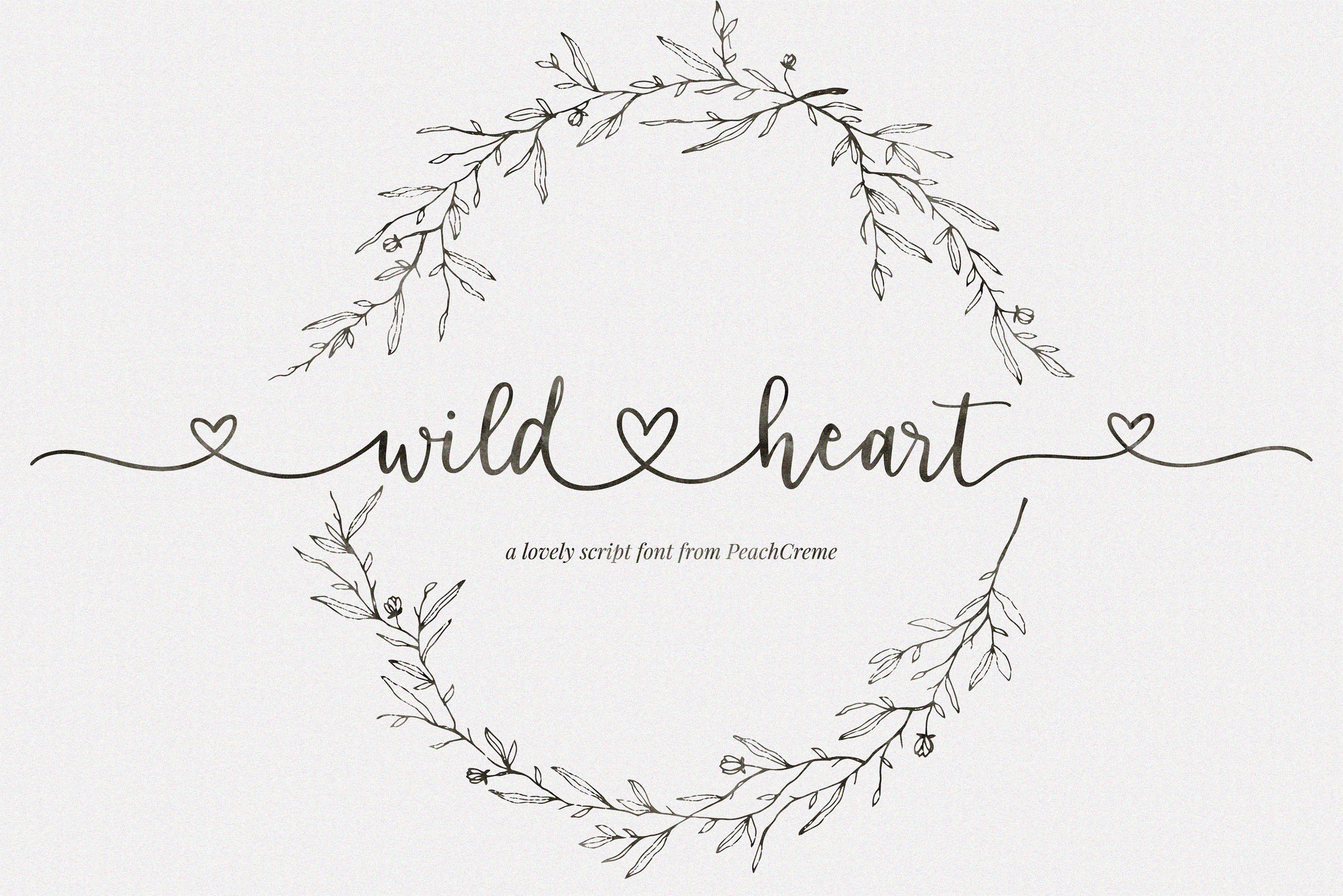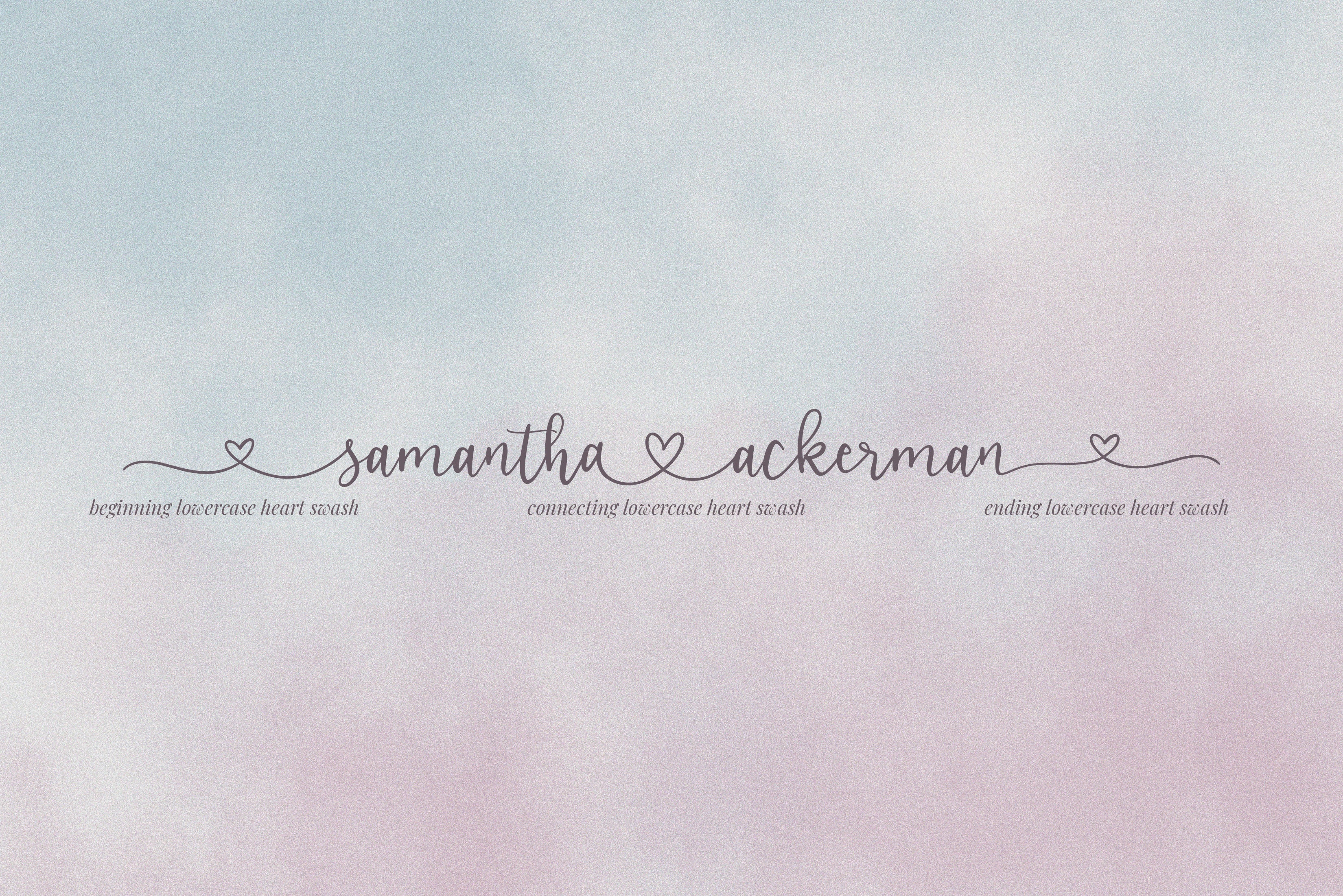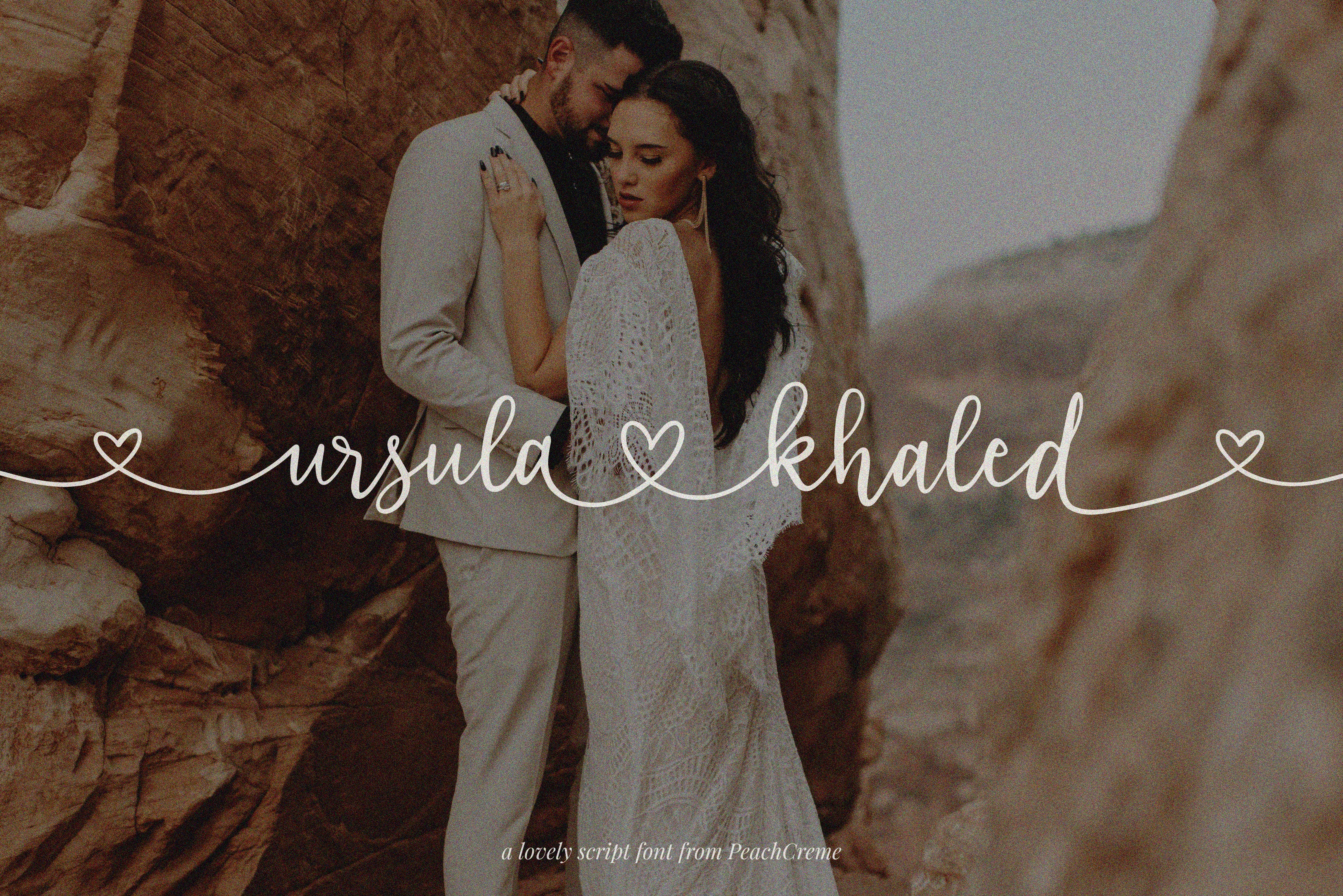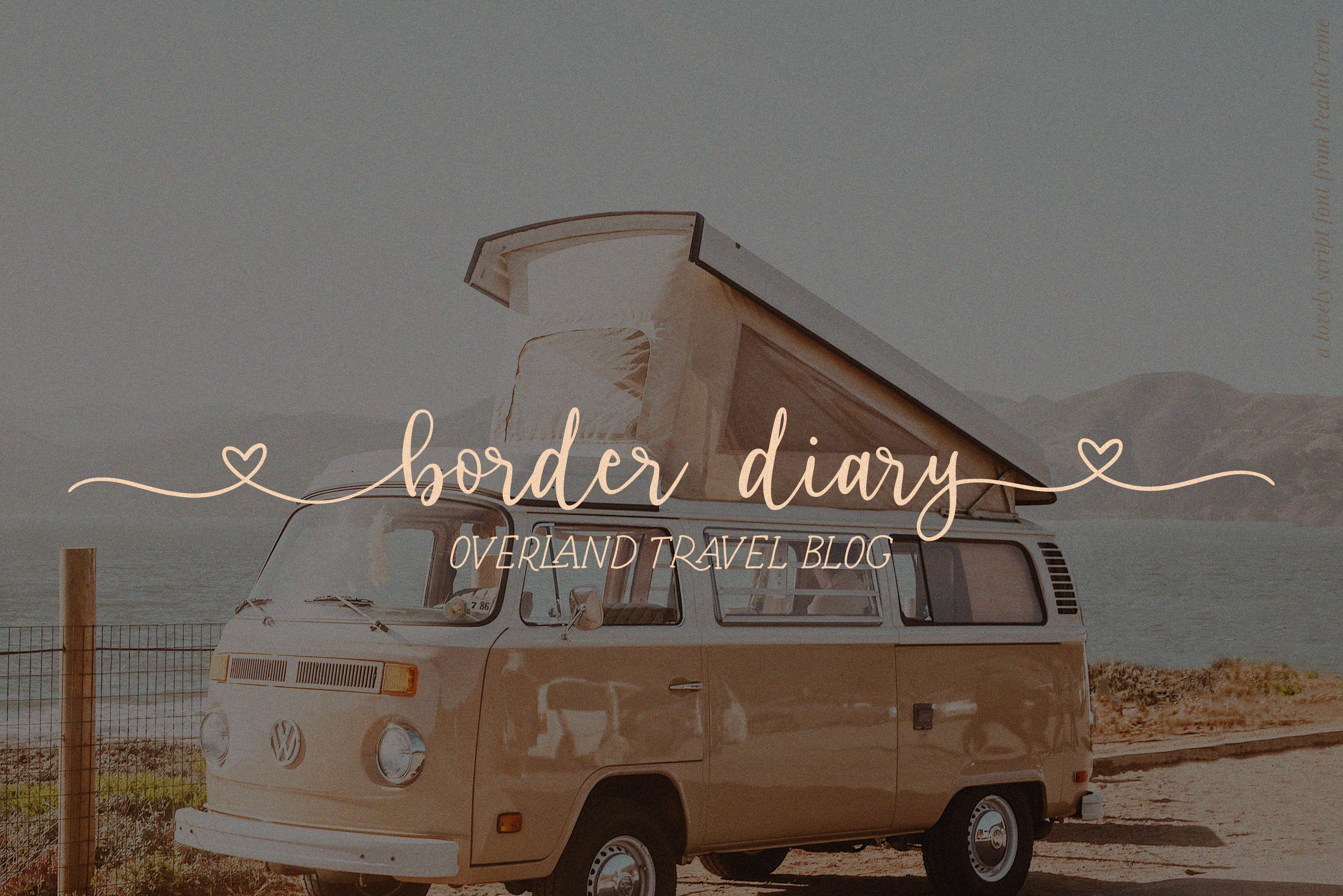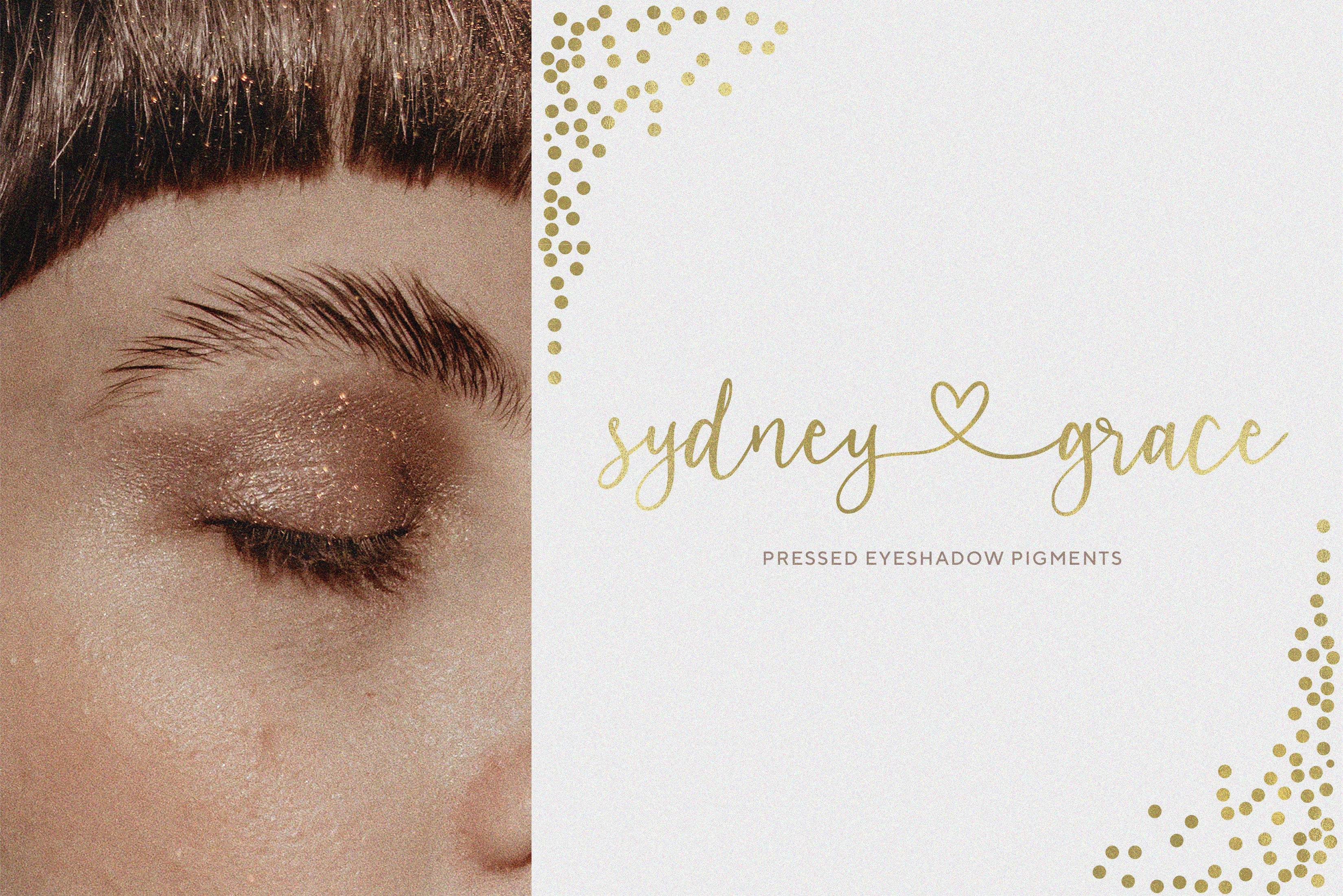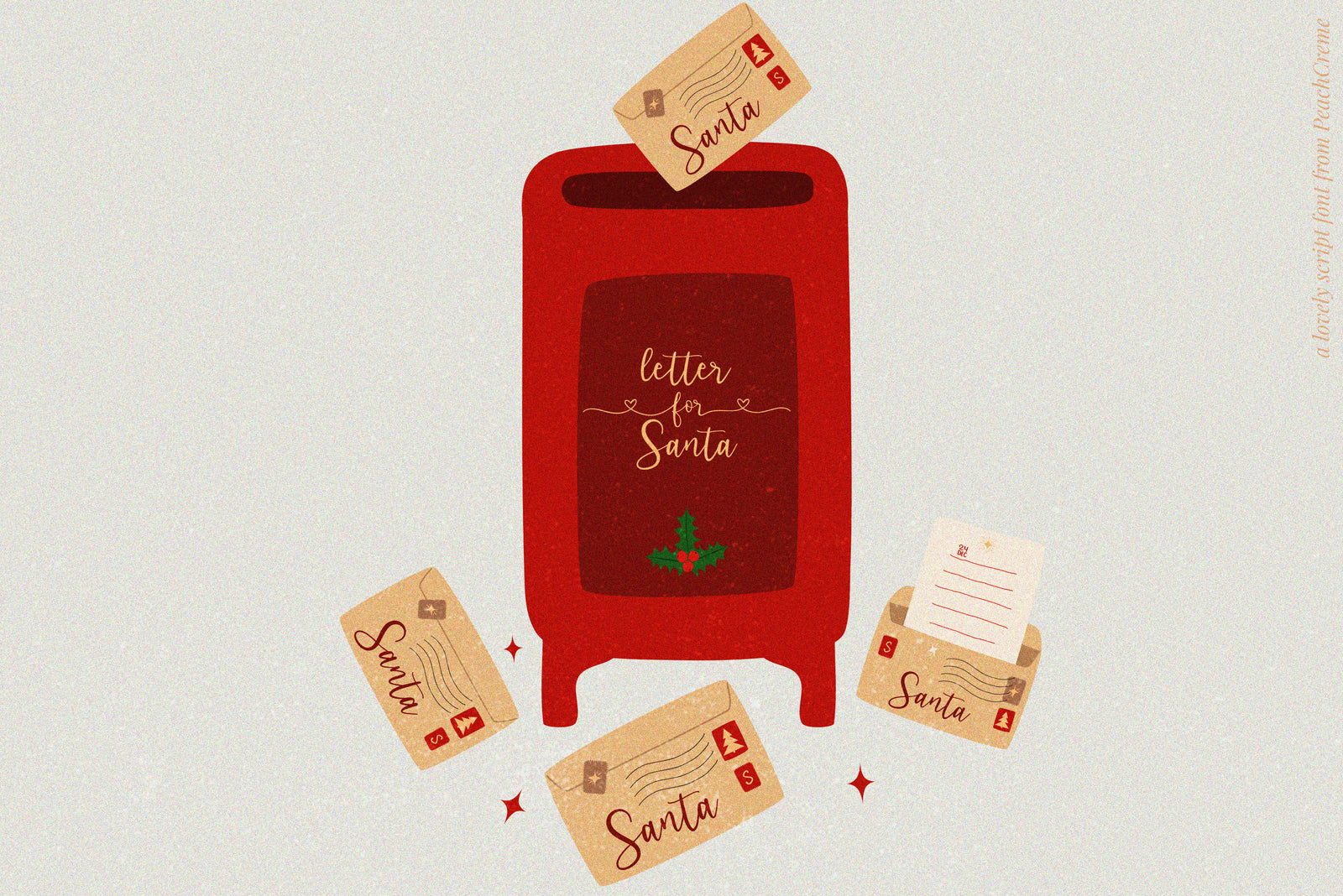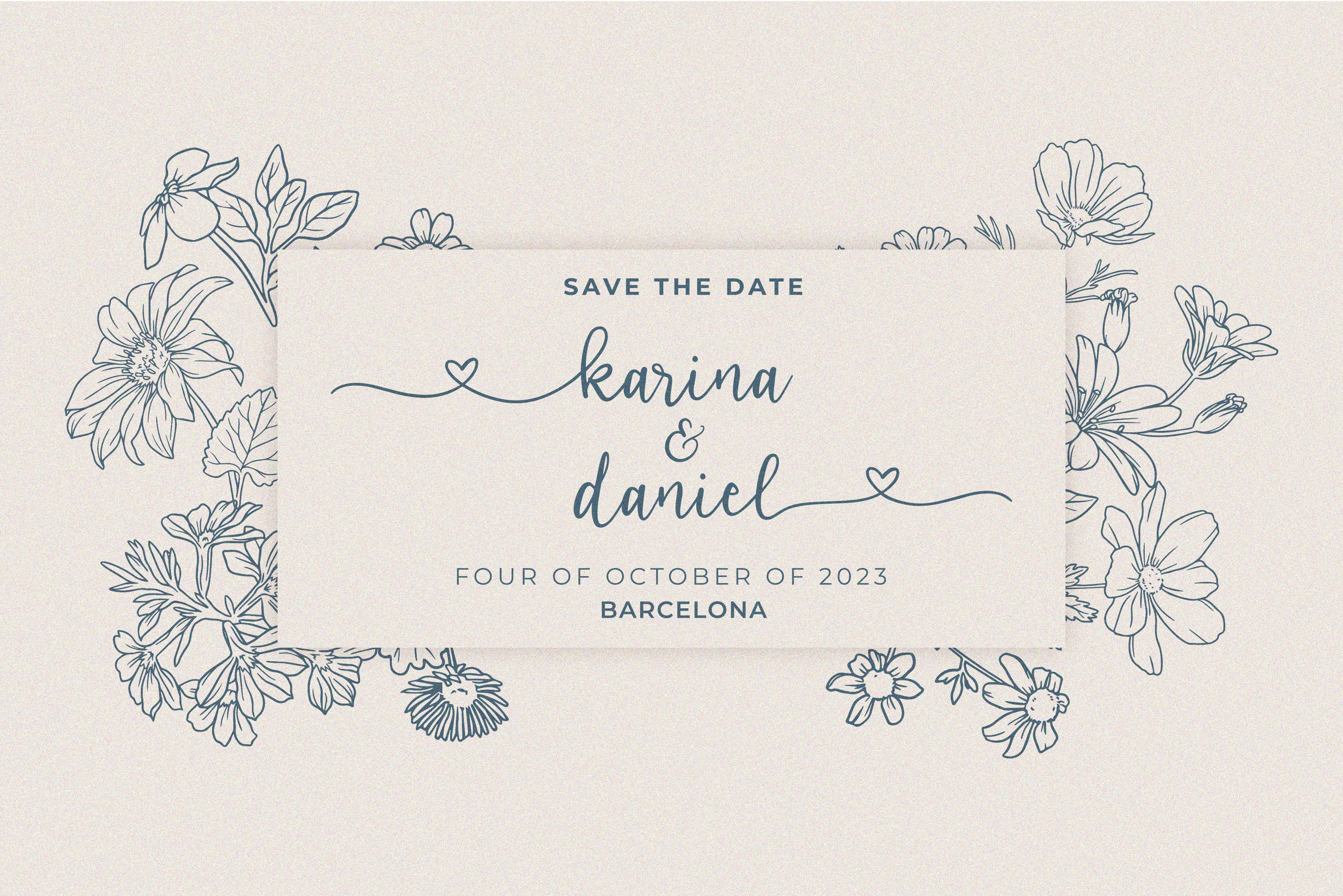
Hey guys! Introducing you "Wild Heart", our new lovely script font. Featuring handwritten, refined flows, "Wild Heart" includes beautiful uppercase and lowercase letters, numerals, punctuation, and adorable heart swashes. Repeating every inch of it the ending heart swash is a mirrored replica of the beginning heart swash. Also, there is a connecting heart swash which serves to bind two words or letters together. The font characters are thick enough to fit perfectly for all types of printing techniques, especially Cricut, Silhouette, etc. "Wild Heart" can add a charming touch to your branding design, wedding invites, cards, monograms, and so many other projects.